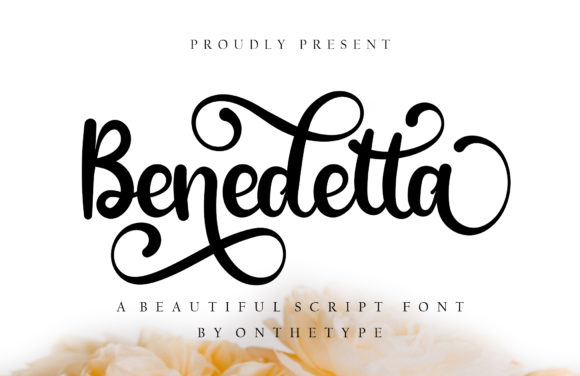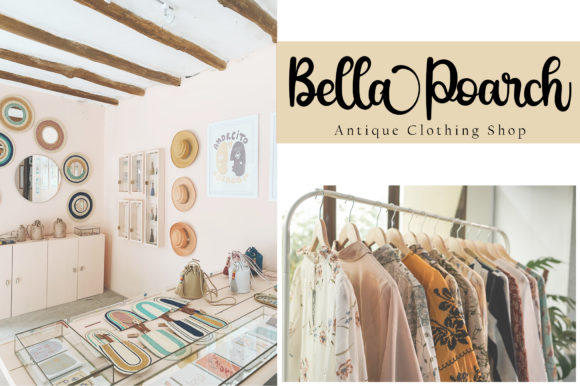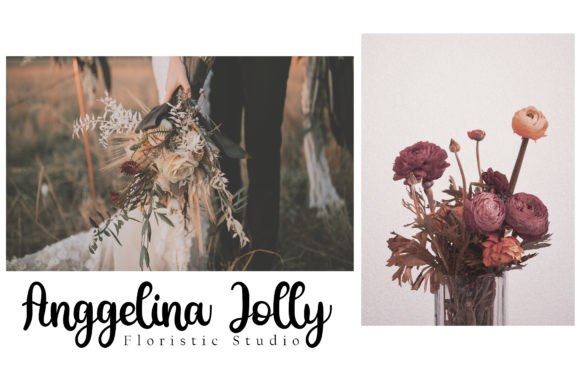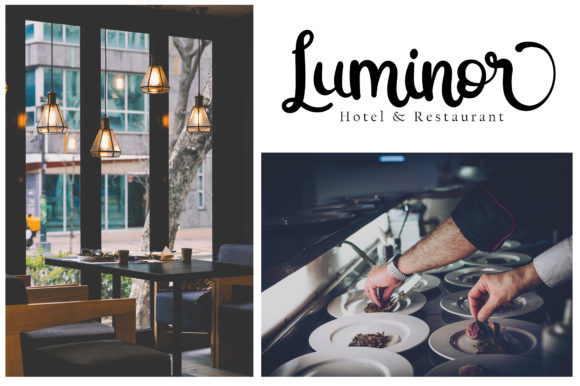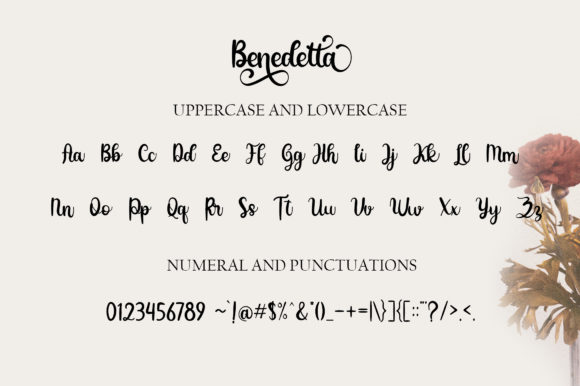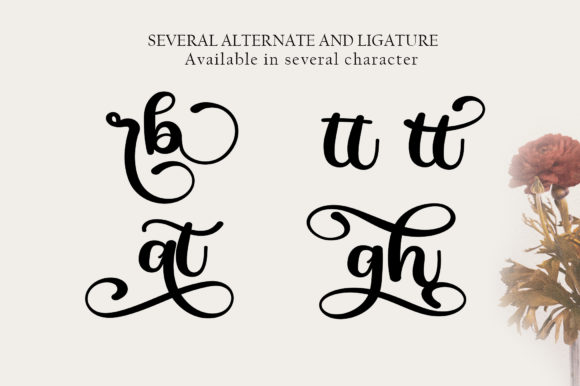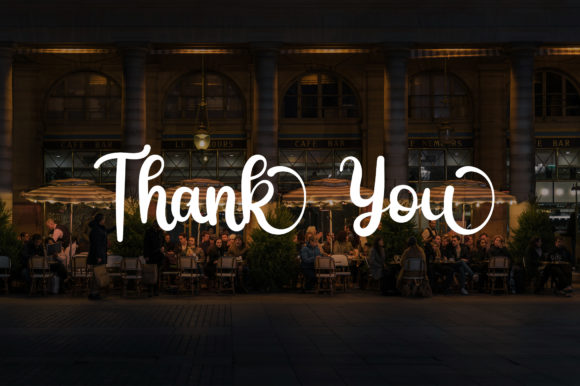
Benedetta Font
About Benedetta Font
Benedetta is a delicate and elegant handwritten font. Its distinct and well balanced letters make this font a masterpiece. Fall in love with its incredibly versatile style and use it to create spectacular designs!
Benedetta is PUA encoded which means you can access all of the amazing glyphs and ligatures with ease!